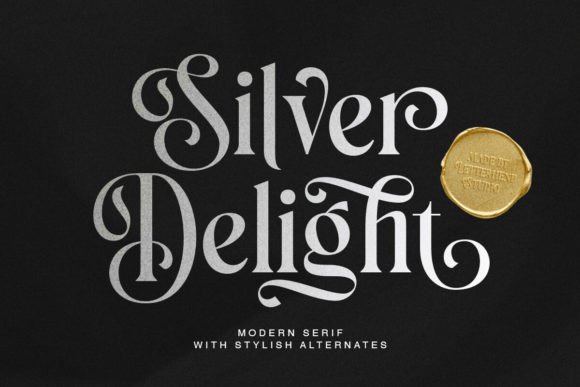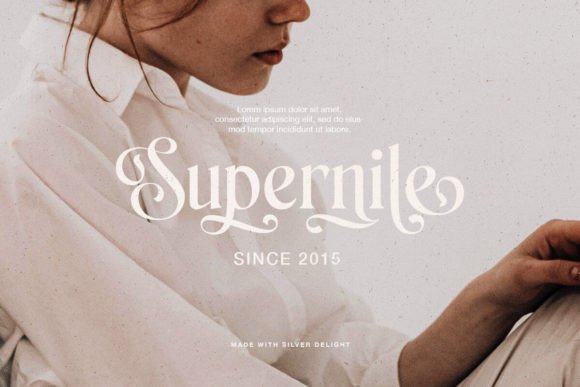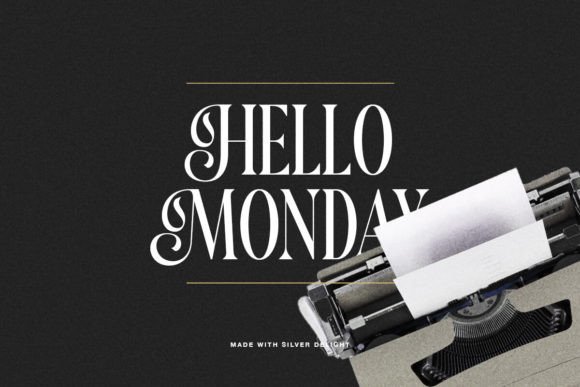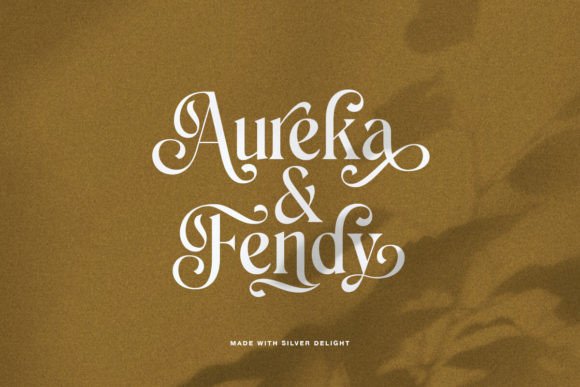
Silver Delight Font: Elegant Serif for Logo Design & Branding
About the Silver Delight Font
The Silver Delight Font offers a perfect balance of form and function for your design needs. Silver Delight is a modern serif. This typeface has many stylish alternates with swashes that can make your lettering/logotype more interesting. The clean and neat serif combined with the swirl swashes make this font one of a kind!
Silver Delight Font Usage Examples
Silver Delight Font Example